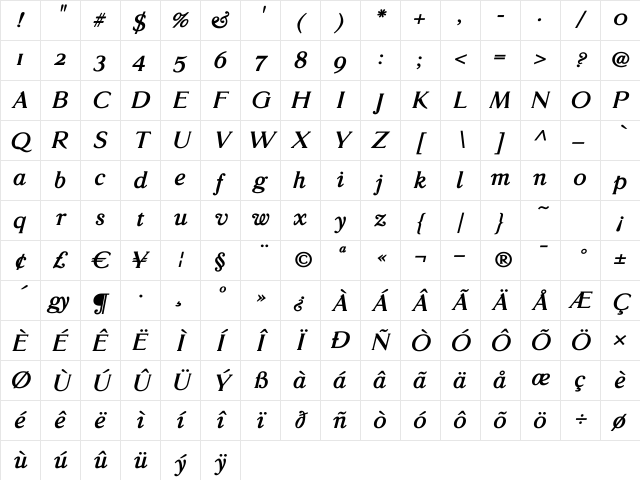
GlossoBold Italic Regular Free Font
GlossoBold Italic Regular
Complete GlossoBold Italic Regular glyph index. Displaying only characters natively supported by GlossoBold Italic Regular font.
Design Context for GlossoBold Italic
GlossoBold Italic is a composed and adaptable typeface that performs quietly and consistently across a wide range of design contexts. The slanted form adds forward momentum and visual energy. Its bold stroke weight gives it real presence on the page.
Pro Tip: Use GlossoBold Italic for emphasis, pull quotes, and subheadings where its slanted energy can add rhythm to the layout.